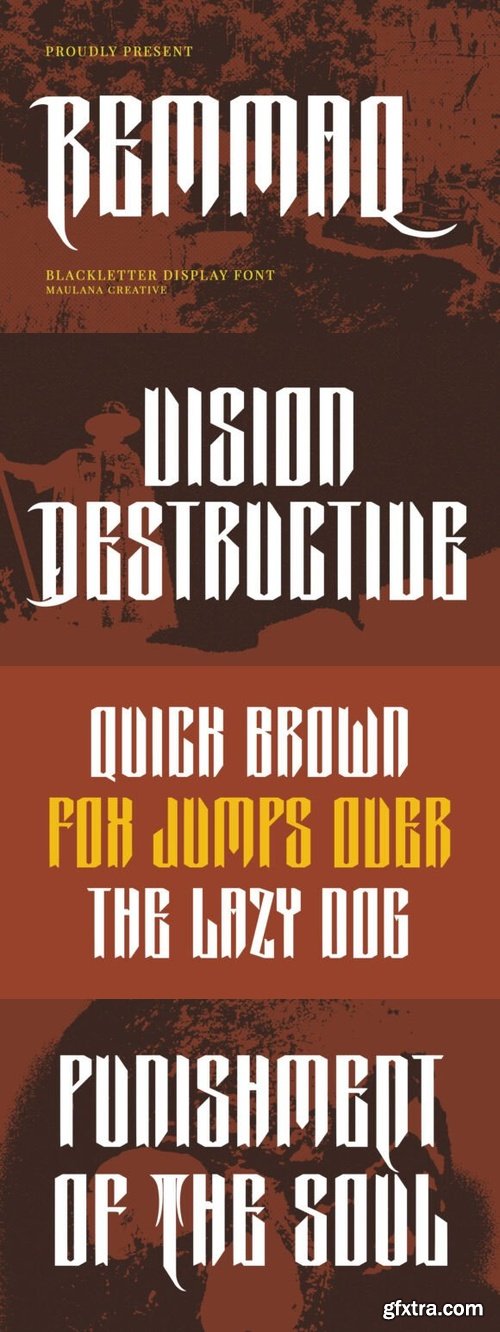
- Remmaq is a striking blackletter display font that blends medieval flair with modern precision. Featuring bold vertical strokes and sharp edges, it evokes a sense of authority and tradition. Ideal for metal band logos, gothic posters, book covers, or any project that needs a bold, old-world presence with contemporary impact.